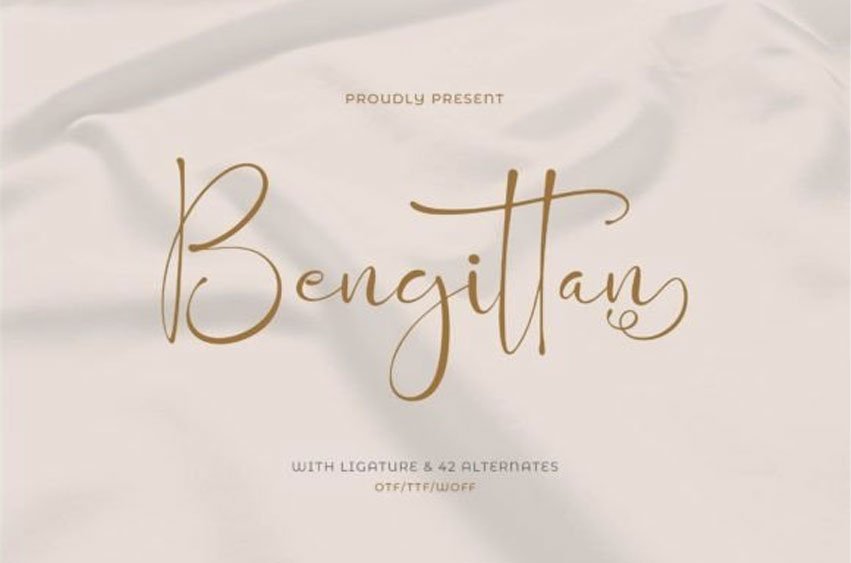
Bengittan Font is a magical script font carefully created with a touch of elegance.
Whether you’re looking for fonts for Instagram or calligraphy scripts for DIY projects, this font will turn any creative idea into a true piece of art!